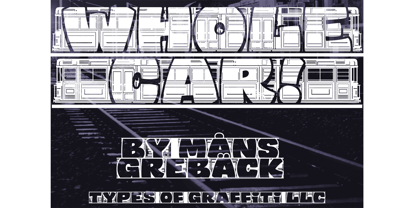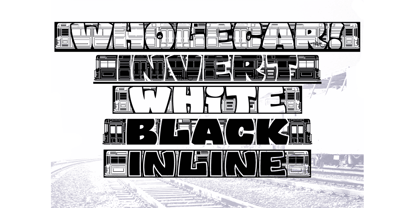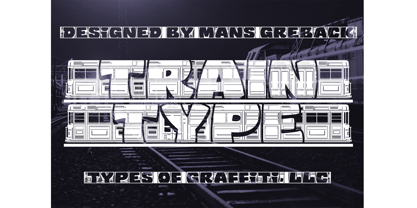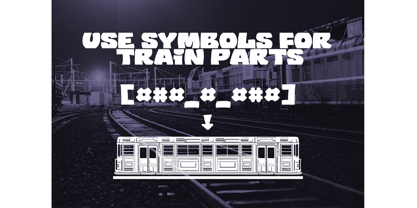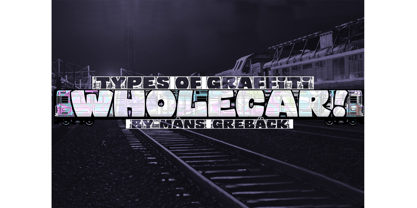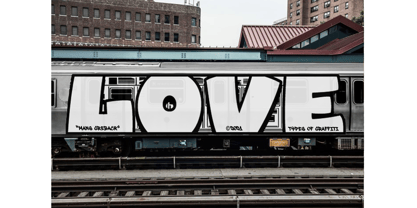
The Wholecar Font Family was designed by Måns Grebäck and published by Types of Graffiti, LLC. Wholecar contains 5 styles and family package options. More about this family
Graffiti Inspired Fonts | Wholecar. Introduce a bold and dynamic statement to your projects with "Wholecar" fonts. This graffiti styled typeface family comes in five styles (black, inline, invert, regular and white), and is the perfect design for big-rig advertisements, bus and train wraps, billboards, or any other outdoor placements. Designed by Måns Grebäck, Published by Types of Graffiti, LLC
Wholecar